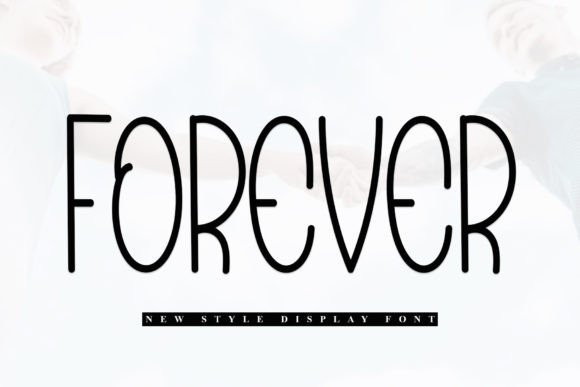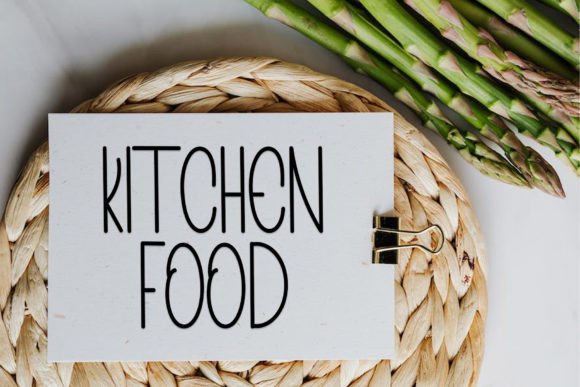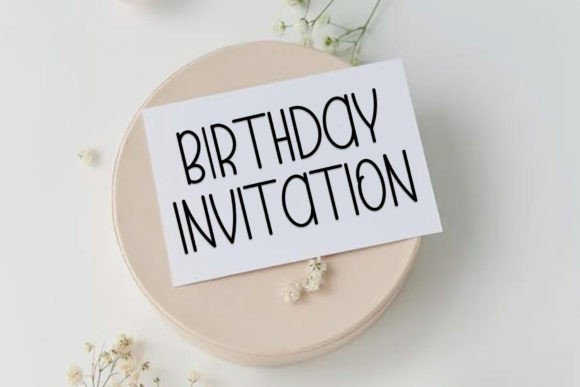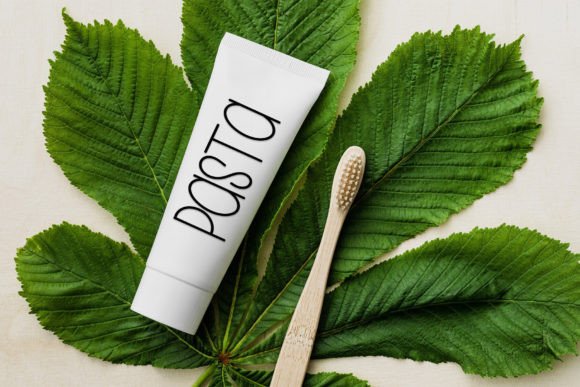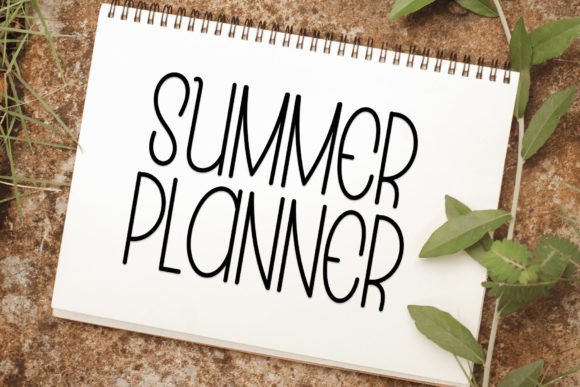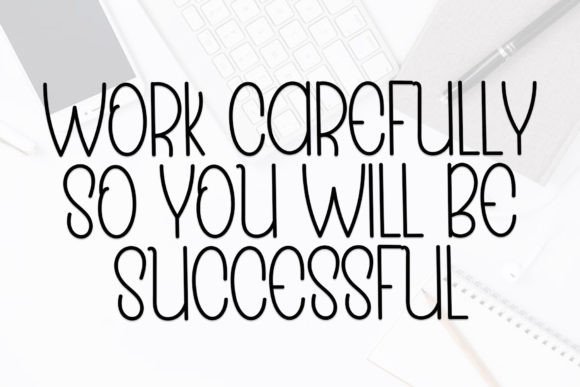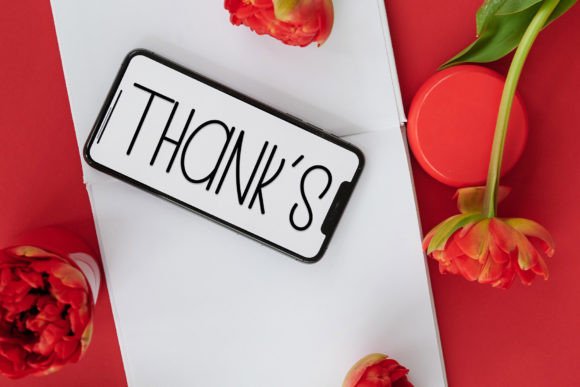
The Perfect Font for a Lasting Impression
Have you ever stared at a blank page, trying to come up with the perfect design to express your creativity? The pressure to stand out in a crowded digital landscape can be overwhelming. But what if you could capture the essence of your vision in a single, elegant font? Enter Forever Font, a stylish display font that exudes elegance and charm, making it the perfect addition to any design project.
With its fluid strokes and natural flow, Forever Font brings a sense of warmth and creativity to any design. Whether you’re creating invitations, branding, or social media graphics, this font adds a personal touch that sets your work apart. As a designer, you understand the importance of finding the right font to convey your message and connect with your audience. That’s why Forever Font is a valuable asset to have in your design toolkit.
Forever Font Key Features
- Unique Characteristic: Forever Font features a distinctive blend of modern and vintage elements, providing a unique aesthetic that sets it apart from other fonts.
Forever Font Review
As a designer, I’ve had the chance to work with a variety of fonts, but Forever Font is one that has left a lasting impression. ✨ One of the things that works well for this font is its versatility – it can be used for both formal and informal projects, making it a great choice for designers who like to keep their options open.
Another advantage of Forever Font is its readability. ✨ The font is well-designed to be easy on the eyes, even at smaller font sizes, making it perfect for body text or headings. It’s also great for digital displays, as it maintains its clarity even at low resolutions.
- ⚠️ Not ideal for display use – while Forever Font is great for body text, it may not be the best choice for display headings or titles, as it can look a bit generic.
Overall, I’d say that Forever Font is a solid choice for designers who want a reliable, easy-to-read font. It may not be the most exciting choice, but it gets the job done.
Forever Font: A Practical Application Guide
Forever Font is perfect for creating elegant and sophisticated designs, such as wedding invitations and business cards.
Forever Font is ideal for creating high-end designs, such as luxury brand logos and packaging.
Forever Font is perfect for creating professional-looking presentations and documents, such as business reports and resumes.
Tips for Getting the Most Out of Forever Font
Use Forever Font in combination with other elegant fonts to create a sophisticated look.
Experiment with different font sizes and styles to add depth and visual interest to your design.
Use Forever Font for headings and titles to draw attention and create a sense of hierarchy in your design.
Business cards and marketing materials
Luxury brand logos and packaging
Professional-looking presentations and documents